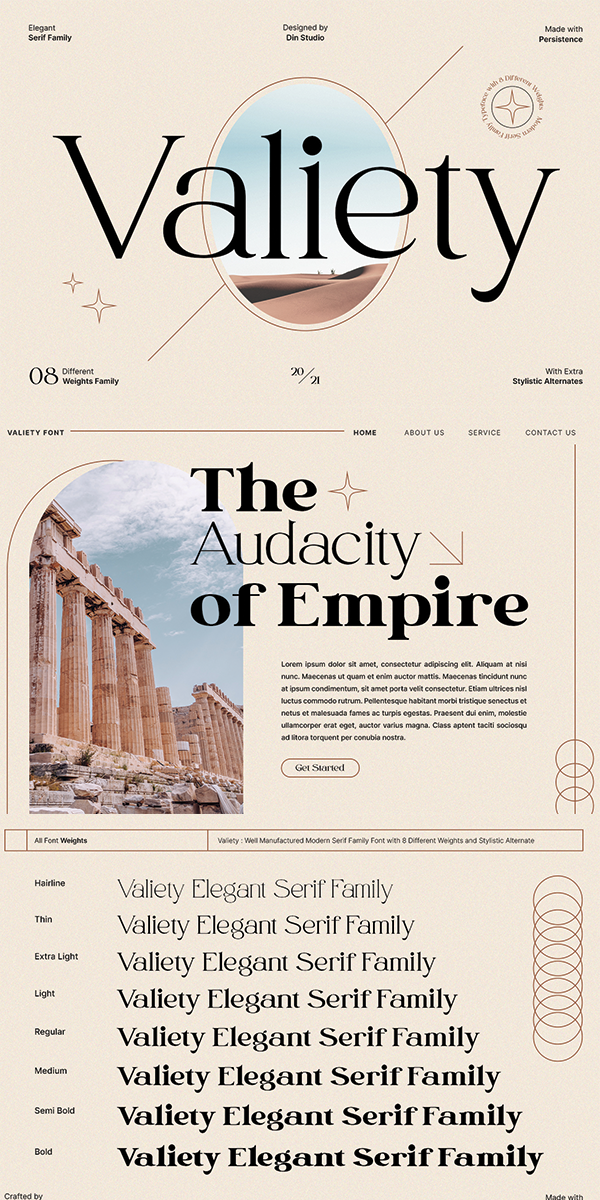
Valiety Font
About Valiety
Valiety-A Serif Font Family
Valiety is a package that will delight you. Valiety comes with exquisite character changes and many weights options, a kind of classic decorative copper serif with a modern touch, designed with high detail for an elegant style. Valiety is interesting because it is smooth, clean, glamorous, simple and very easy to read, because there are many fancy letter joints. This font is very suitable to be applied in various formal forms such as invitations, labels, restaurant menus, logos, fashion, make up, stationery, novels, magazines, books, greeting / wedding cards, packaging, labels or all kinds of advertising purposes.
Include 8 different weight fonts :
Valiety Hairline
Valiety Thin
Valiety Extra Light
Valiety Light
Valiety Regular
Valiety Medium
Valiety Semi Bold
Valiety Bold